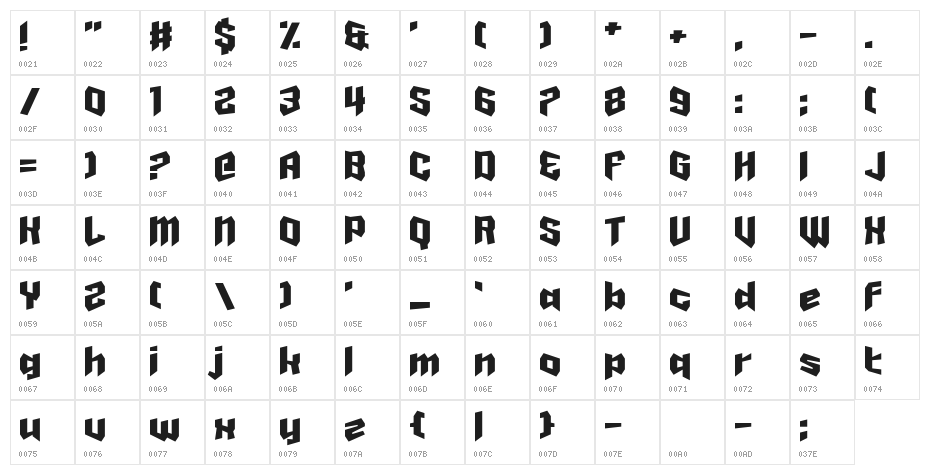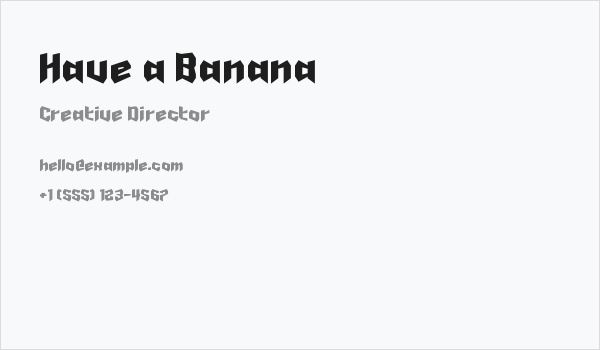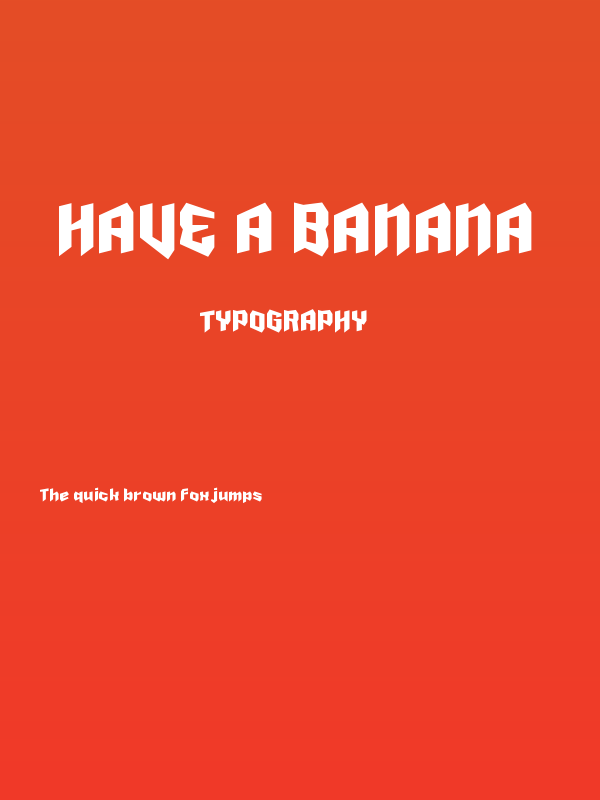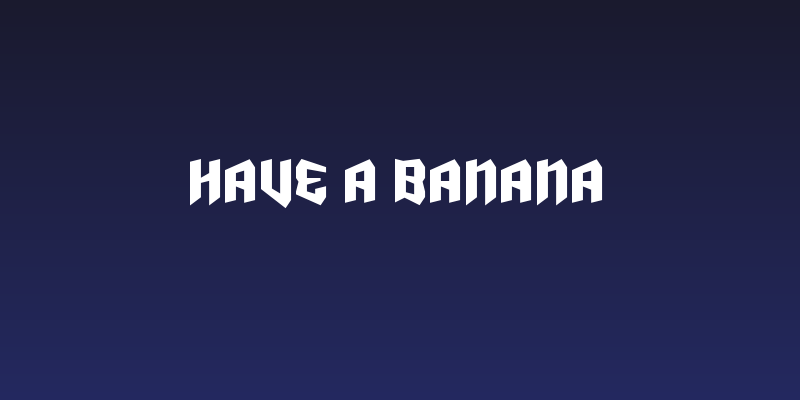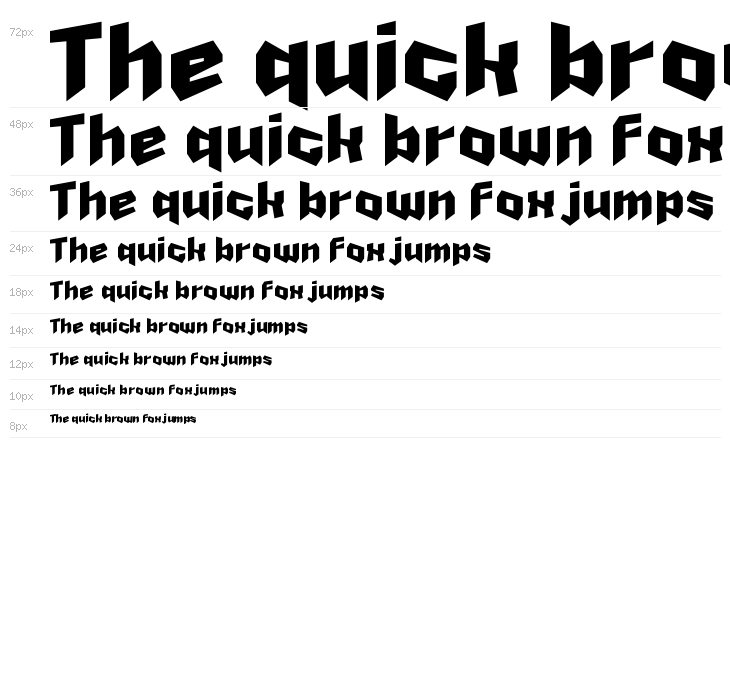
Have a Banana Font
Have a Banana Description
This font features a bold, angular design with a distinct geometric style. The characters are sharply defined with thick strokes, giving them a strong presence. The uppercase and lowercase letters maintain a consistent style, with the lowercase slightly smaller but equally bold. The numbers and special characters follow the same angular and robust design, ensuring uniformity across all characters. This font's unique style makes it stand out, with its sharp edges and bold appearance, making it ideal for attention-grabbing designs.
| Proposed Projects | Ideal for posters, logos, and branding materials that require a bold statement. |